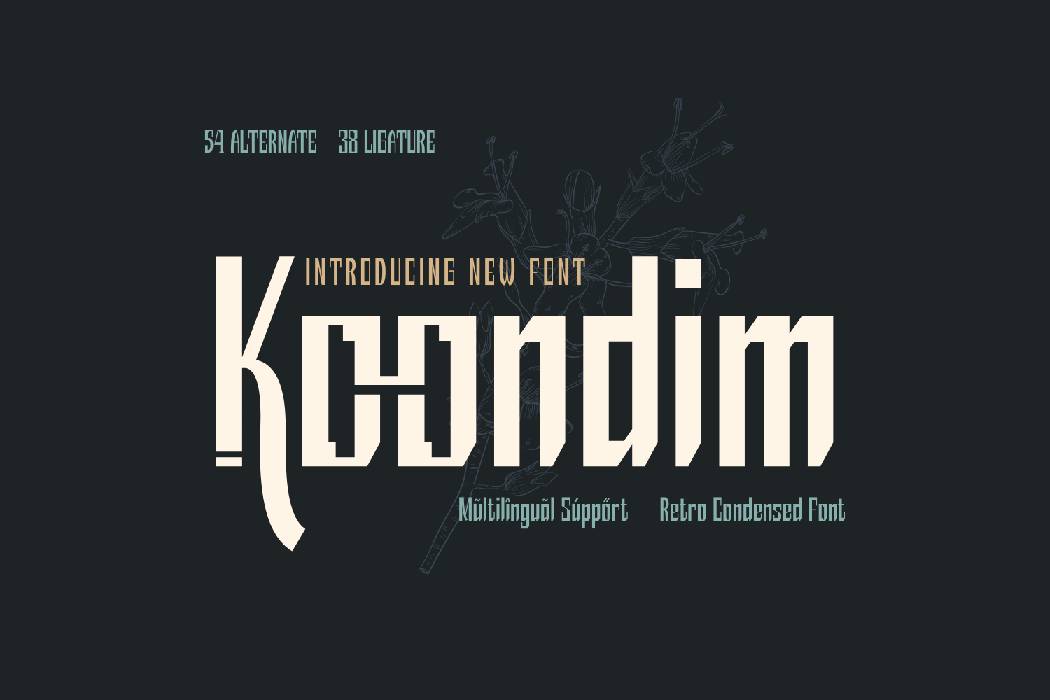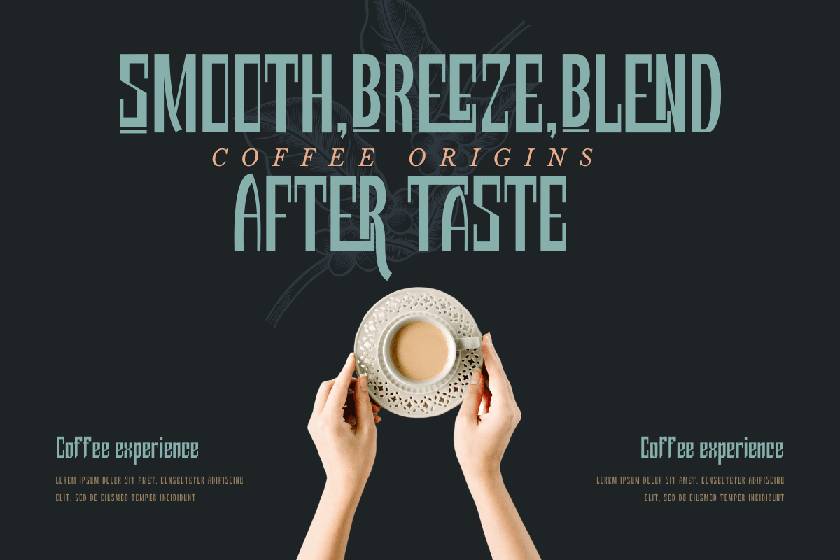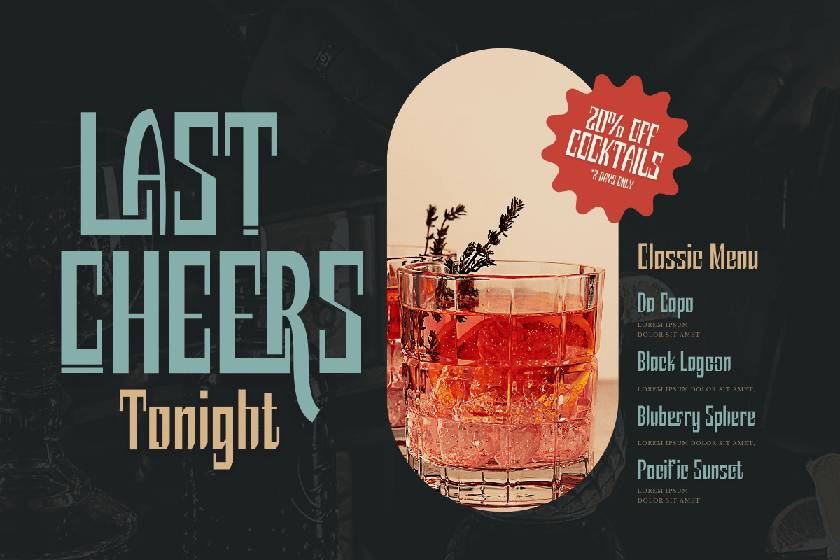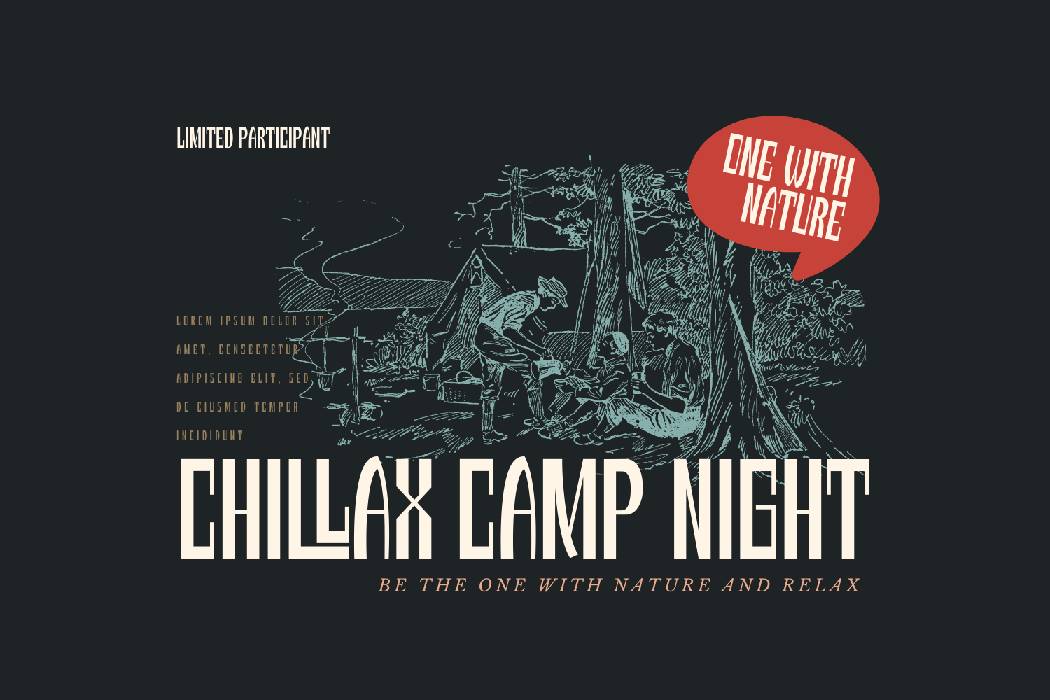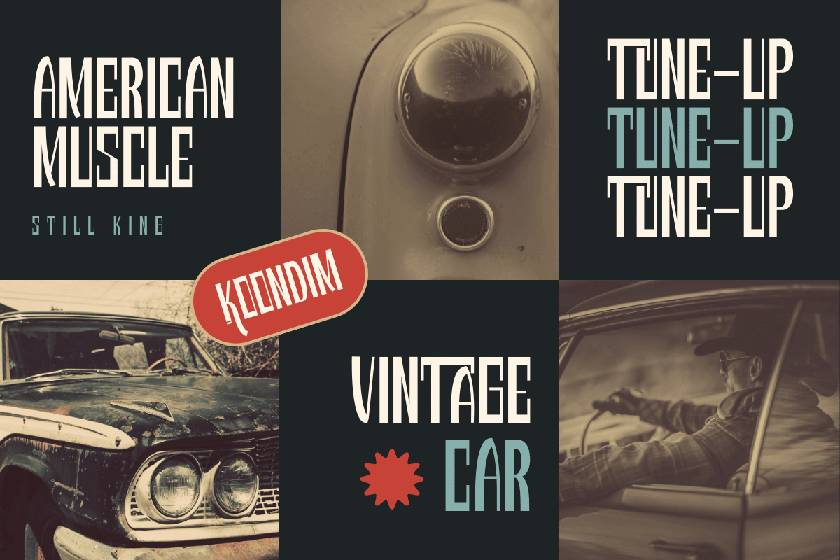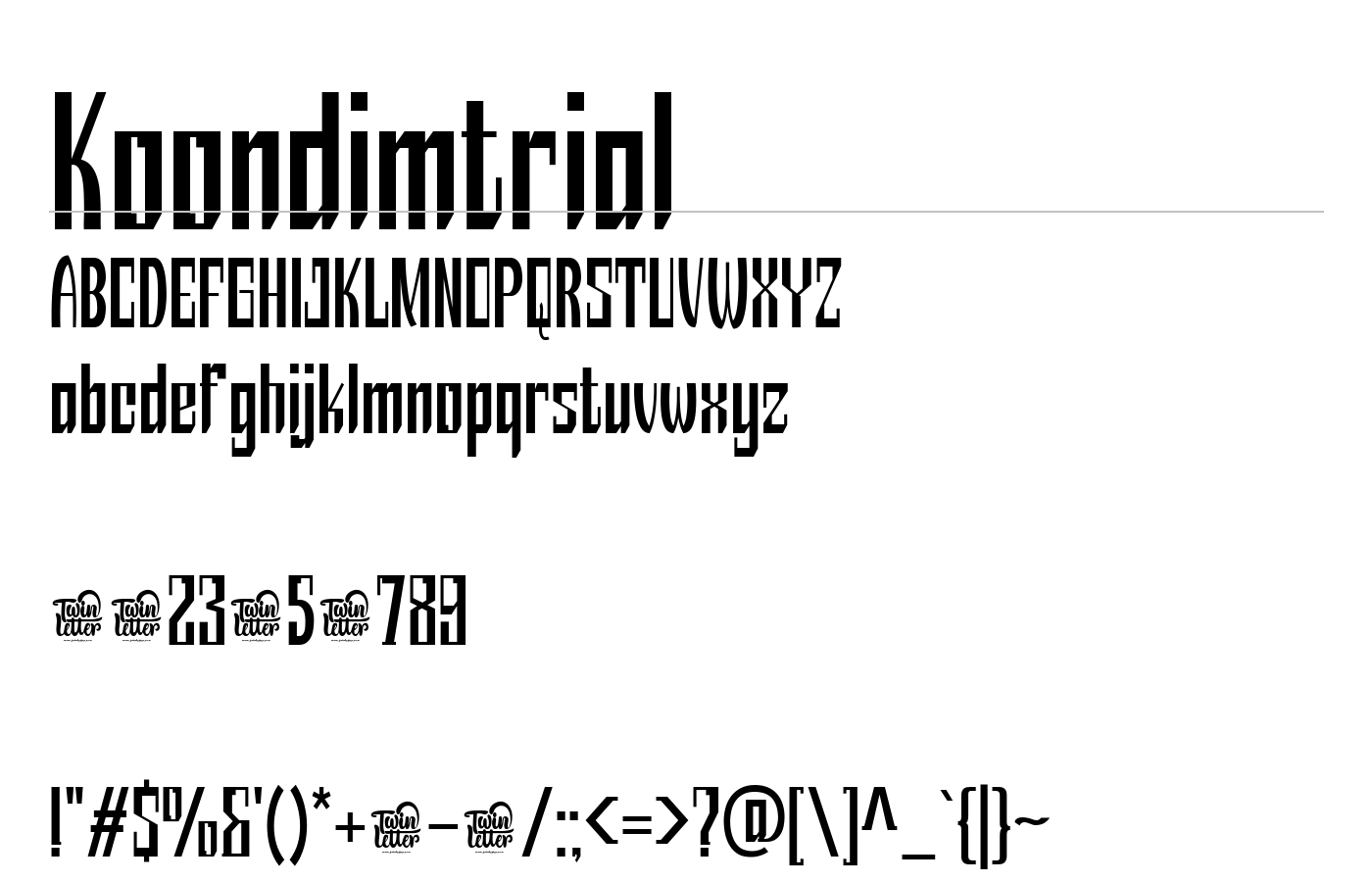
Koondim is a condensed, geometric sans serif font with a narrow, upright structure that gives it a modern, edgy feel. Its tall, slender letterforms with sharp angles and minimal stroke contrast create a distinctive, futuristic style ideal for bold headlines and striking branding. This font works well in creative, urban, or tech-focused designs seeking a strong and unique visual impact.
Koondim Font
About Koondim Font